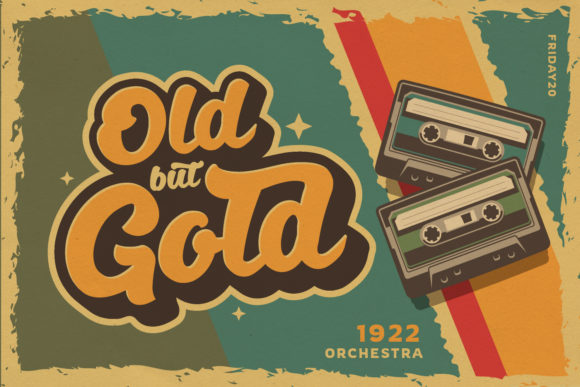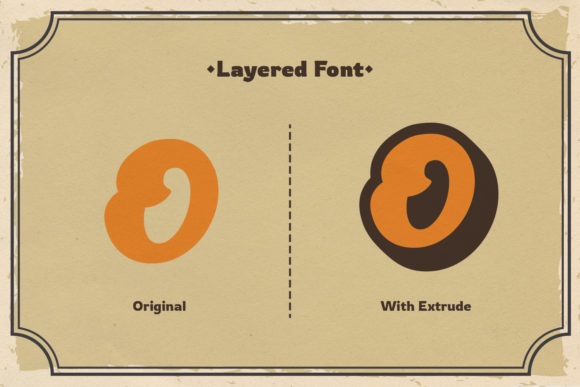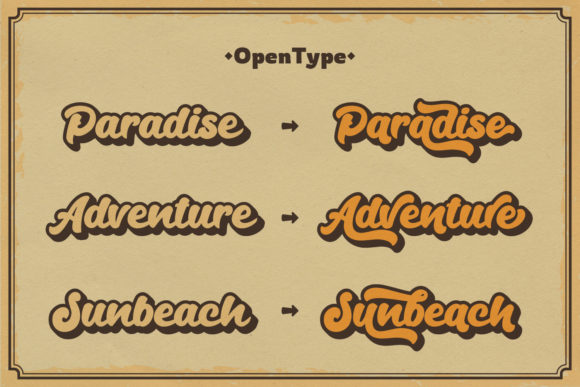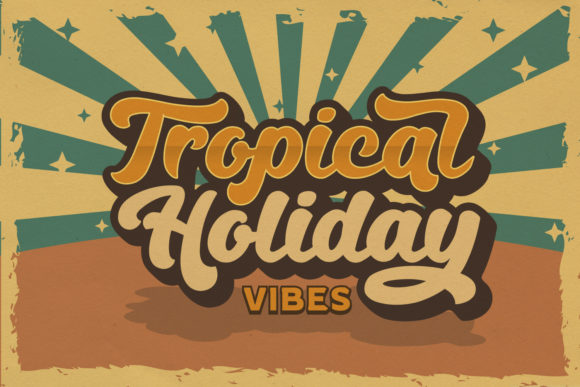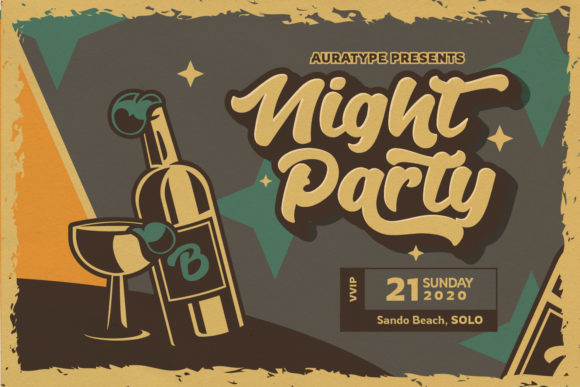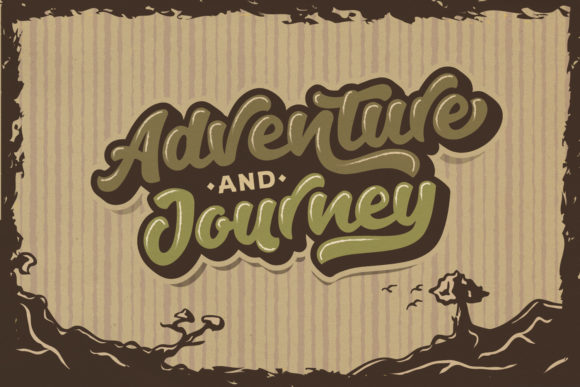
Introducing Andala Font: The Cute and Quirky Handwritten Font for Creative Projects
Are you a designer or crafter looking for a unique and playful font to add a personal touch to your creative projects? Look no further than Andala Font, a charming handwritten font that’s perfect for a wide range of applications. In this article, we’ll explore the features and benefits of Andala Font, and show you how it can elevate your designs to the next level.
What is Andala Font?
Andala Font is a cute and quirky handwritten font that’s designed to add a touch of personality to your creative projects. With its playful and whimsical feel, this font is perfect for use on posters, logos, book covers, t-shirt designs, packaging, and more. Whether you’re a professional designer or a DIY crafter, Andala Font is a versatile and fun font that’s sure to inspire your creativity.
Key Features of Andala Font
- Cute and Quirky Design: Andala Font features a unique and playful design that’s sure to capture attention. Its handwritten feel makes it perfect for projects that require a personal touch.
- PUA Encoded: Andala Font is PUA (Private Use Area) encoded, which means you can access all of the glyphs and swashes with ease. This makes it easy to use the font in your designs, even if you’re not a professional typographer.
- Wide Range of Applications: Andala Font is perfect for a wide range of creative projects, including posters, logos, book covers, t-shirt designs, packaging, and more.
Benefits of Using Andala Font
So why choose Andala Font for your creative projects? Here are just a few benefits of using this charming font:
- Adds a Personal Touch: Andala Font’s handwritten feel adds a personal touch to your designs, making them stand out from the crowd.
- Easy to Use: With its PUA encoding, Andala Font is easy to use, even if you’re not a professional typographer.
- Versatile: Andala Font is perfect for a wide range of creative projects, from posters and logos to book covers and t-shirt designs.
How to Use Andala Font in Your Designs
Using Andala Font in your designs is easy. Here are a few tips to get you started:
- Pair it with Other Fonts: Andala Font pairs well with other fonts, so feel free to experiment with different combinations to find the perfect look for your project.
- Use it for Headings and Titles: Andala Font is perfect for use on headings and titles, where its playful feel can really shine.
- Experiment with Colors and Textures: Andala Font looks great in a variety of colors and textures, so don’t be afraid to experiment and find the perfect look for your project.
| Font Name | Andala Font |
| Author | Auratype |
Andala Font is a charming handwritten font that’s perfect for designers and crafters looking to add a personal touch to their creative projects. With its cute and quirky design, PUA encoding, and wide range of applications, Andala Font is a versatile and fun font that’s sure to inspire your creativity. Whether you’re a professional designer or a DIY crafter, Andala Font is a great choice for any project that requires a playful and whimsical feel.